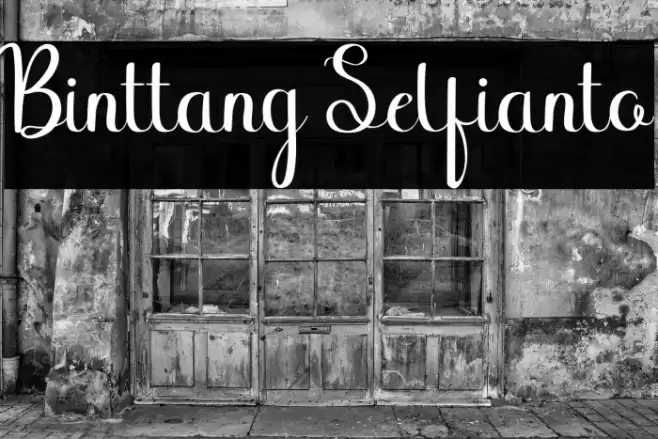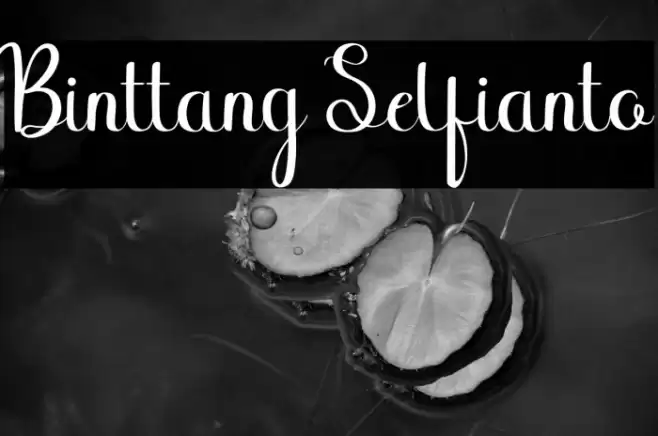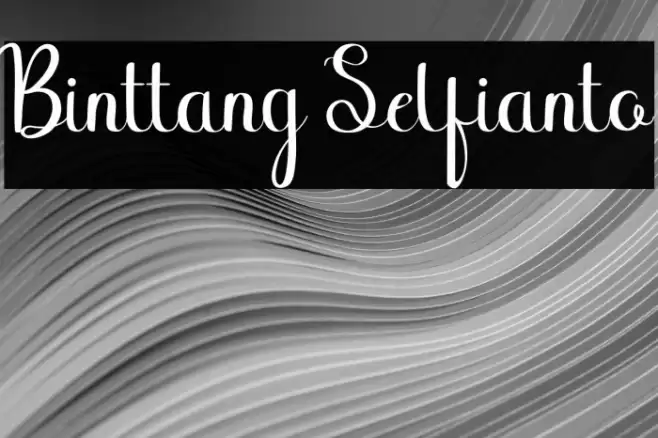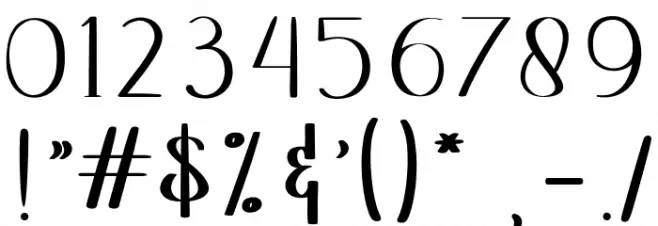
Binttang Selfianto Font
Binttang Selfianto Description
This font features a playful and elegant script style with a modern twist. The uppercase letters are tall and slender, with graceful loops and curves that add a touch of sophistication. The lowercase letters maintain a consistent flow, with some characters extending below the baseline, enhancing the font's dynamic appearance. Numbers are clear and legible, while special characters are designed to complement the overall aesthetic. The font's smooth lines and balanced proportions make it suitable for a variety of creative projects.
A playful and elegant script font with modern, graceful curves from Uncategorized fonts.
- Proposed Projects: Ideal for wedding invitations, branding, greeting cards, and social media graphics.
- Use Case: Logos, Invitations, Social media graphics